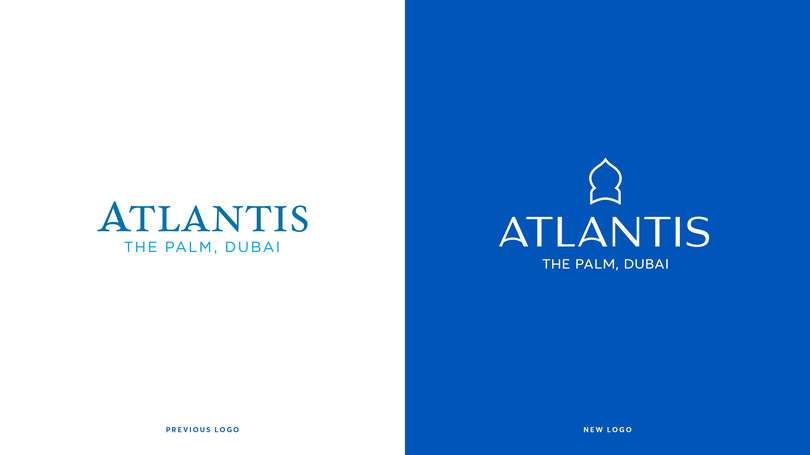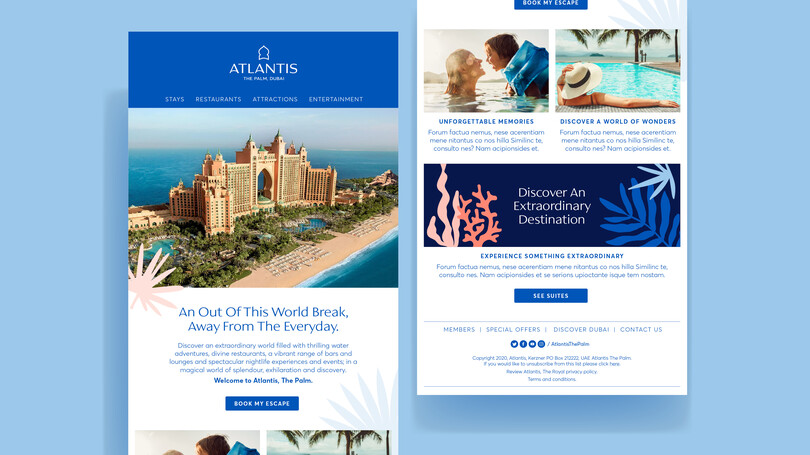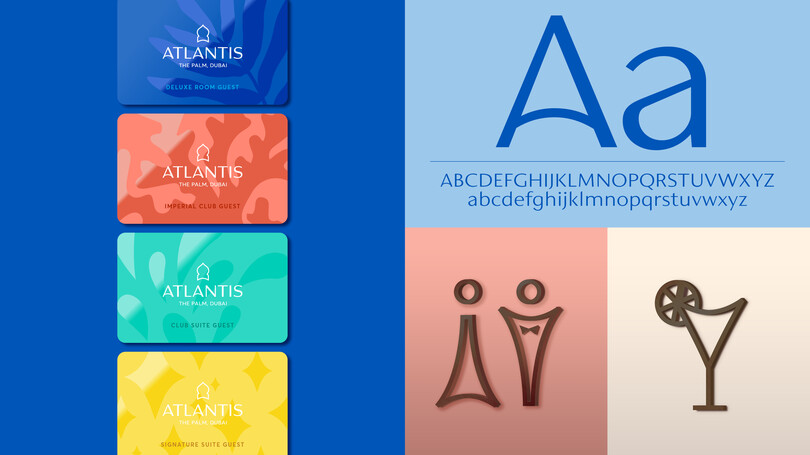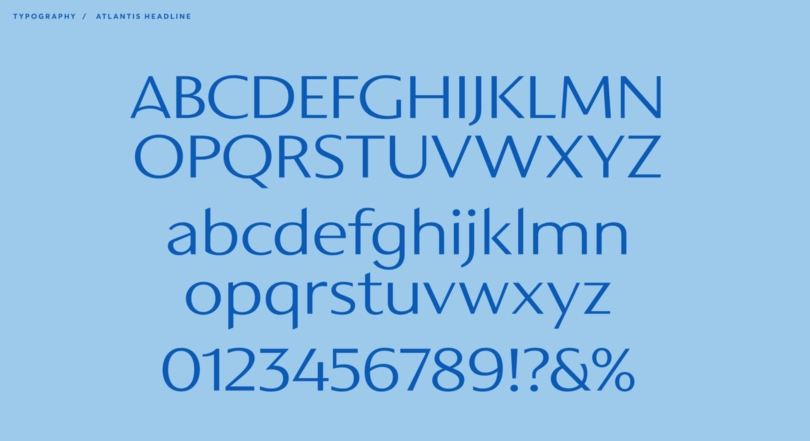
A new brand identity for Atlantis Resorts.
“ Type is culture, the nuances of letterforms reflect time and place. For established global brands, location and heritage offer vital cue's for establishing an authentic tone of voice. The new Atlantis font hit's that mark, a distinct and elegant typography that imbues a sense of Atlantis's one of a kind, exclusive destination experiences. ”
Phil Garnham, Creative Type Director at Monotype.
Futurebrand and Kerzner International asked Monotype Studio to help refresh the brand identity for Atlantis, the beyond luxury hotel brand which operates both The Palm and The Royal in Dubai and Sanya in China. This is the first brand update for the group since the opening of The Palm in 2008 and is a move to unify the visual brand across all properties.
Futurebrand worked with Atlantis to draft a new logotype for the brand, a modernised evolution of the original typography, one that retained the arched ‘A’ crossbars of the original but now housed in a new, contrasted sans serif style. The formal idea was in place but something wasn’t quite right.
Futurebrand asked Monotype Studio to collaborate, to hone in on the design details and help bring their vision to life through the craft and refinement of the letters. We explored the logo’s weight, contrast, proportions, spacing and the curves of all characters to finalise the new mark and create a confident iteration of the letterforms.
Logotype design is its own discipline, it requires a unique set of skills and demands a different approach to the design of a typeface, but logo design and logo-artworking can also be a nice way into the custom type design process. Together we began to expand on the idea of a unique custom font style that could provide a visual glue between all of the brands properties. A key aspect of the identity was the brand’s signage and hotel wayfinding system. Futurebrand had created a bespoke icon set for ‘The Royal’ and we could see an opportunity to create a typeface that took influence from that to build a coherent visual language with the new logotype and iconography.
Our brief was to create a caps only headline font that would become synonymous with ‘The Royal’ hotel brand, one that was reflective of middle eastern cultures, regional typographic preferences and reflect Atlantis’s aim to move-on ideas around what a luxury brand is today. We also had to be mindful of how the fonts were going to be used in signage and in-turn signage manufacturing limitations. The letterforms would be cut from steel in a range of sizes so we balanced the weights and ran tests to avoid letter strokes that were too thin. Creating a typeface design born from the logo’s gentle arcs and The Palm’s distinctive architecture, but more robust to meet the functional needs of the brand.
As the brand identity grew with the number of applications and use cases, Futurebrand contacted us to expand the typeface into a full Latin character set of upper and lowercase with a view to creating continuity across the broader Atlantis brand. The lowercase letterforms were heavily influenced by a sense of calligraphic cultures, the calligraphic nature of arabic typography brought through into the Latin script.
“ Stepping into a new decade we needed a fresh take on Atlantis, that captured our mission to be extraordinary in everything that we do. Our brand is fun, creative and experiential, which really needed to reflect in our trademark and branding. ”
Hanan Eissa, Vice President of Marketing & PR, Atlantis